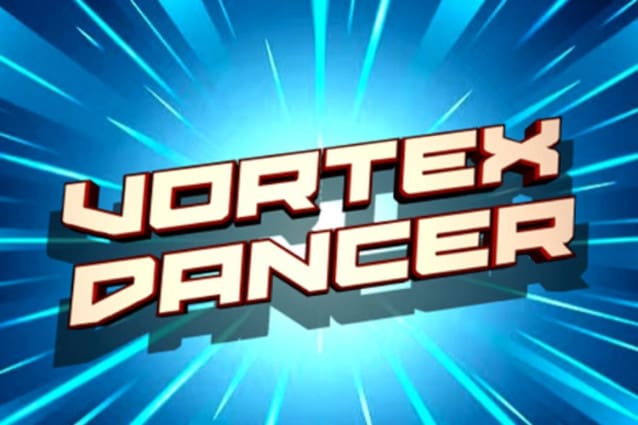
Vortex Dancer Font is a racing font a strong, confident and powerful typeface designed to suit sports logos, club branding, apparel applications, labels and more.